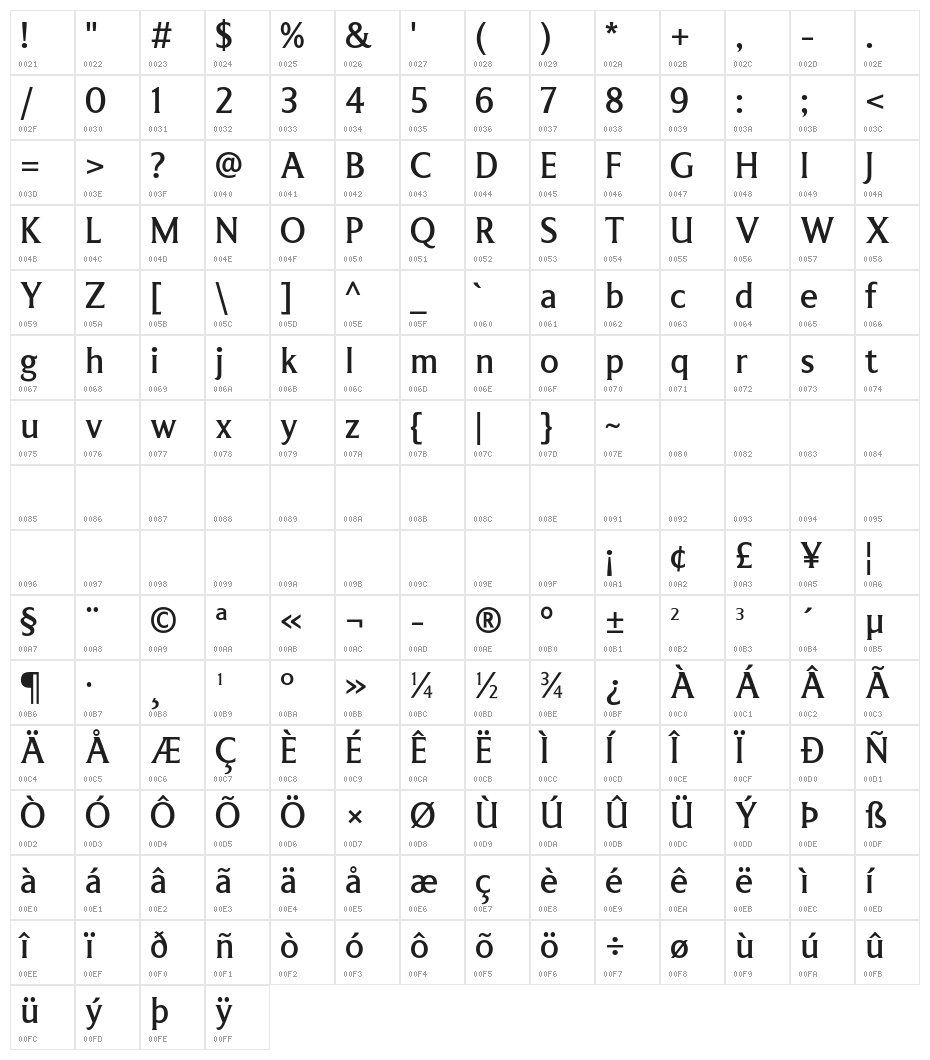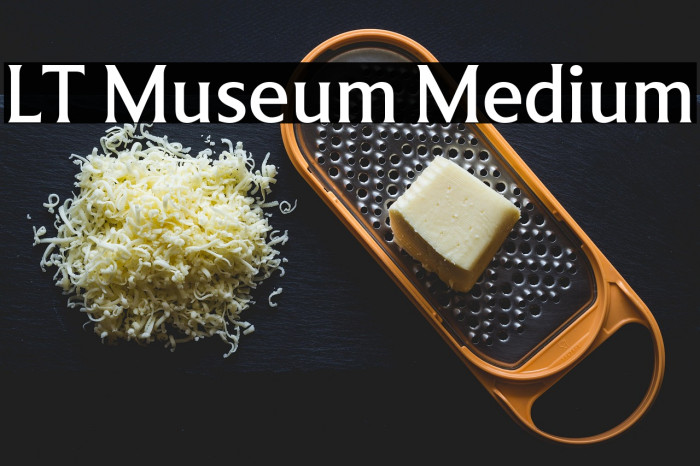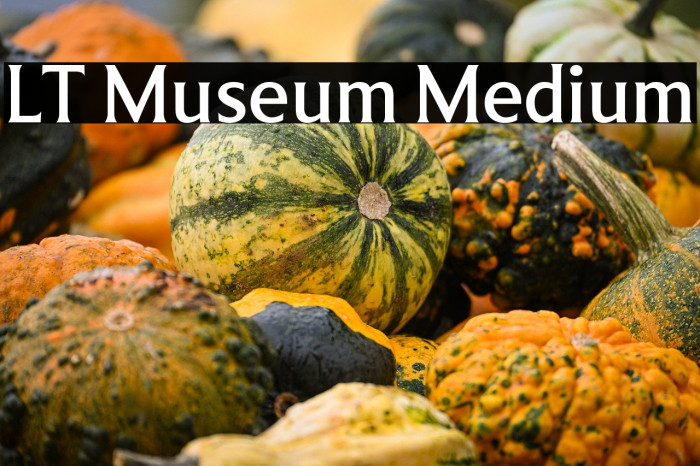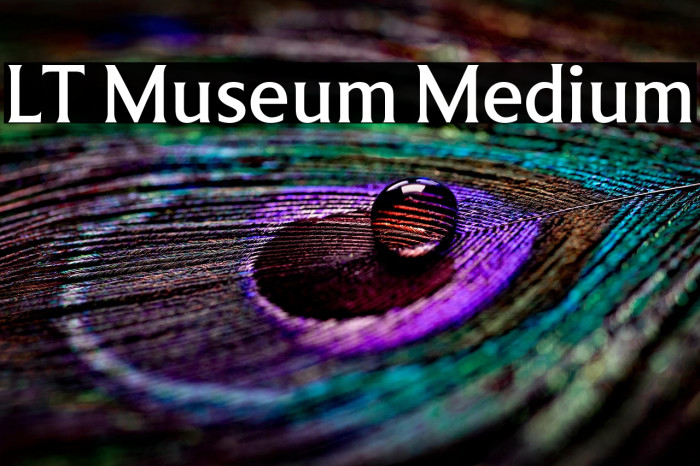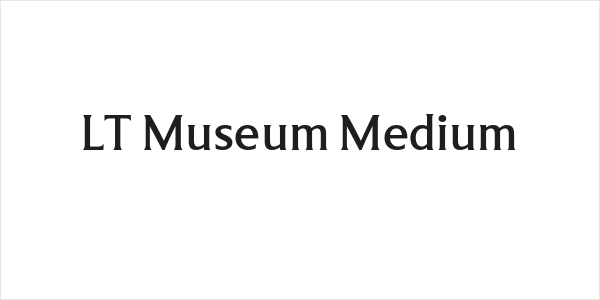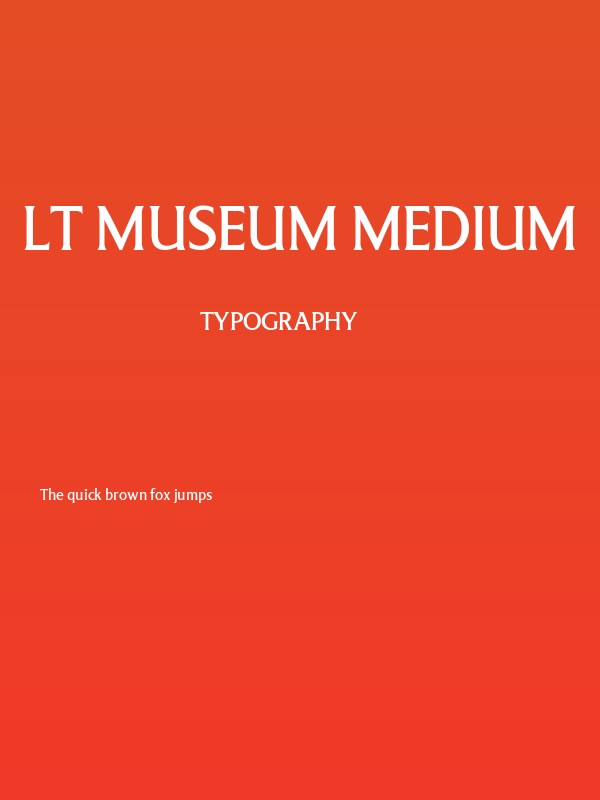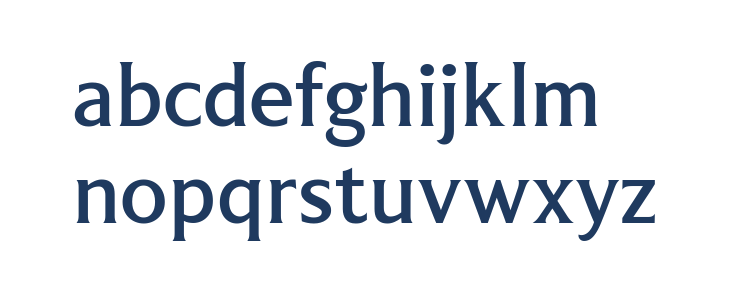
LT Museum Medium Font
LT Museum Medium Description
This font exhibits a classic serif style with a modern twist, characterized by its clean lines and balanced proportions. The uppercase letters are bold and authoritative, while the lowercase letters maintain a harmonious flow, making it versatile for various applications. The numerals are clear and legible, ensuring readability in both print and digital formats. Special characters are well-defined, adding to the font's utility in diverse contexts. Its overall design is elegant yet functional, suitable for both formal and contemporary settings.